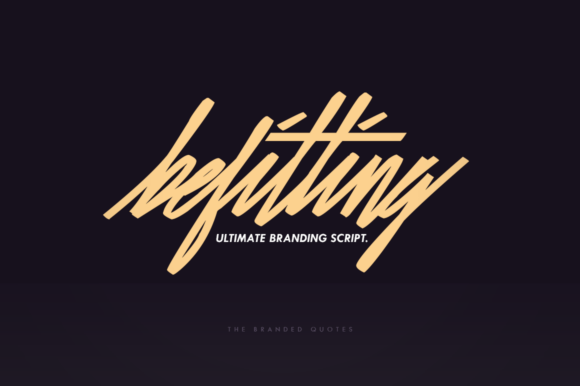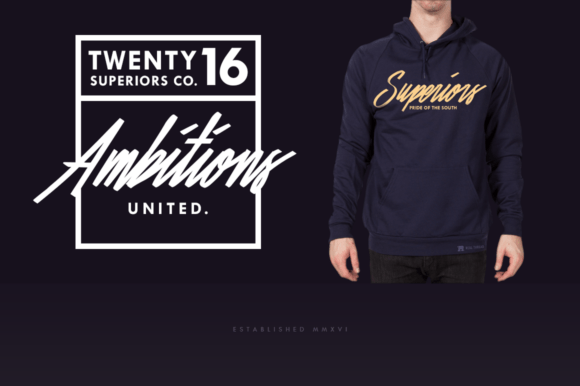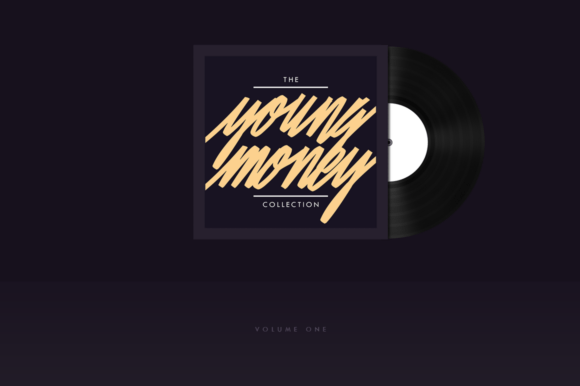
Befitting Font
Befitting Script gives you the blueprint of future possibilities. A Cursive program with smart alternates that flows smoothly as you assemble the words from your mind. Very versatile and will absolutely fit most branding concepts from your hang tags to the typographic design of your apparel brand. The urban style brush strokes gave the font a more flexible look but a striking appearance!